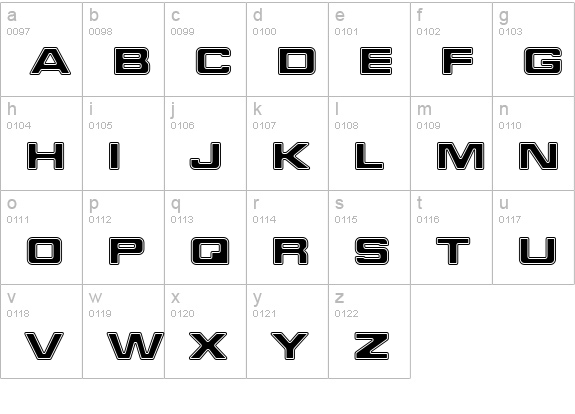
Starfleet Bold Extended BT Font Details
Starfleet Bold Extended BT is a strong, high-contrast, extended-width variant in the Starfleet typeface family \xE2\x80\x94 well suited to headlines, attention-grabbing titles, and strong calls-to-action.
Starfleet Bold Extended BT font exudes a sense of adventure and futuristic elegance. Its bold and extended letterforms capture the essence of strength and power, making it the perfect choice for designs that demand attention and make a bold statement. This font is not just visually striking, but it also offers versatility and readability. Each character is carefully crafted to ensure clarity and legibility, even in smaller sizes. Whether it's for headlines, logos, or posters, Starfleet Bold Extended BT font will effortlessly command attention and leave a lasting impression. But what sets this font apart is its availability for free. Yes, you read that right. Starfleet Bold Extended BT font is freely available to download at FontsMarket.com. Now, designers, typographers, and enthusiasts can access and enjoy its stunning aesthetics without any cost. FontsMarket.com, a trusted source for high-quality fonts, offers this remarkable typeface as a gift to the creative community. With just a few clicks, you can add Starfleet Bold Extended BT font to your collection and bring your design projects to life. So, why wait? Experience the power and elegance of Starfleet Bold Extended BT font today. Download it for free at FontsMarket.com and unlock a world of design possibilities.